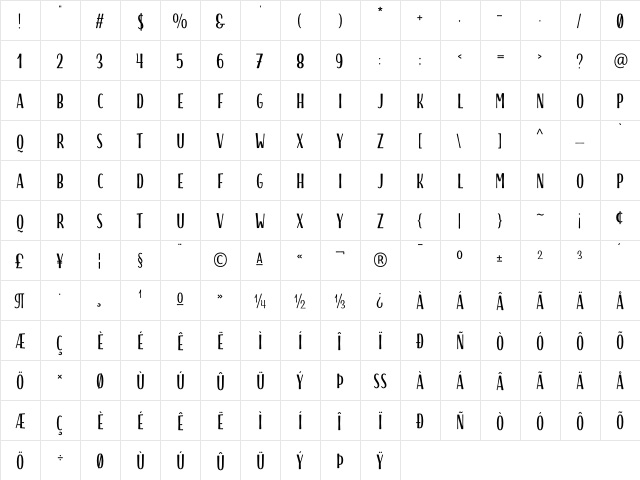
Storyteller Sans Regular
| Foundry | Elena Genova |
| Designer | Elena Genova |
Design Context for Storyteller Sans Typeface
Storyteller Sans offers clean, dependable letterforms without strong stylistic allegiance, making it a practical choice for designers who need flexibility.